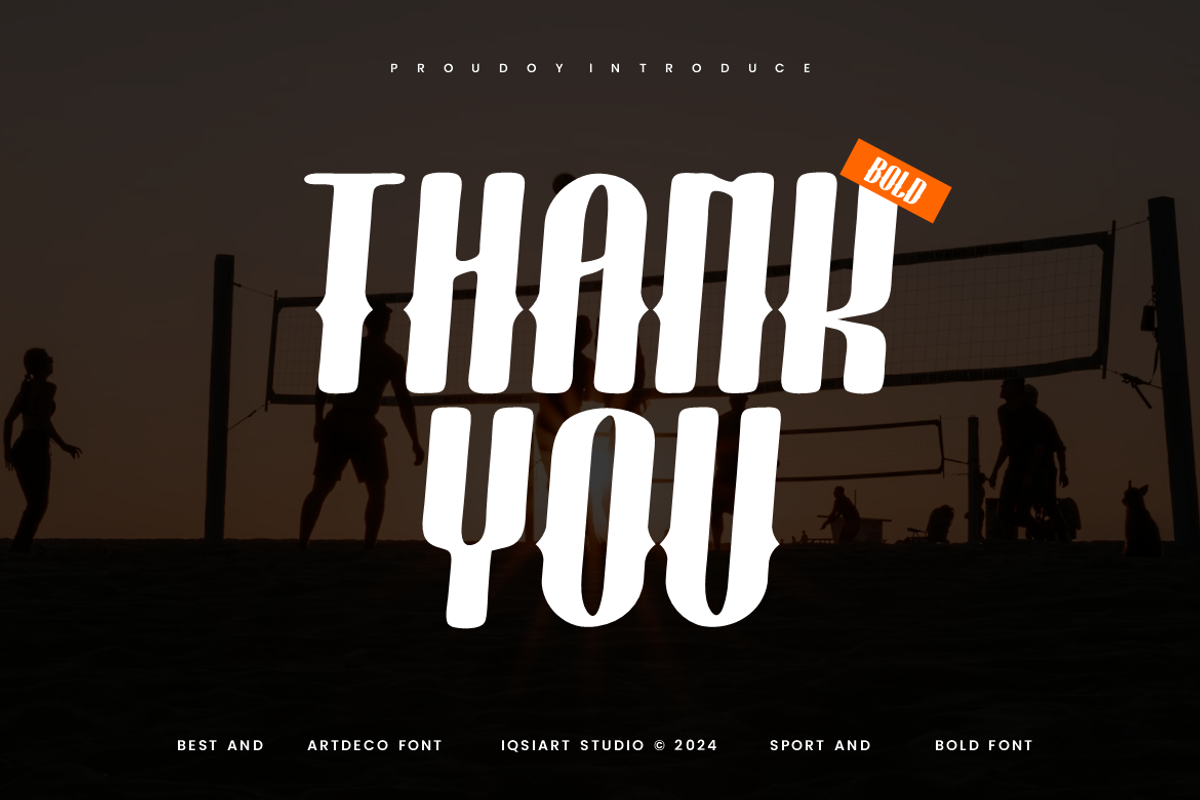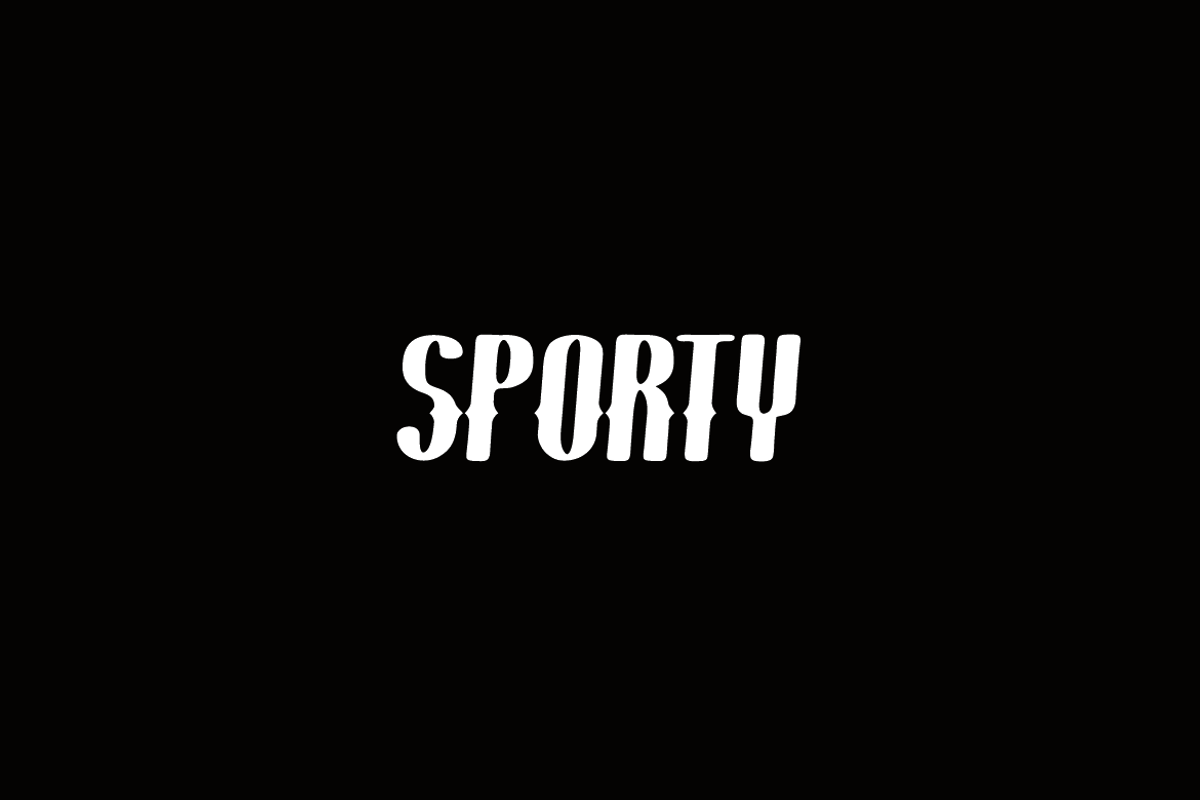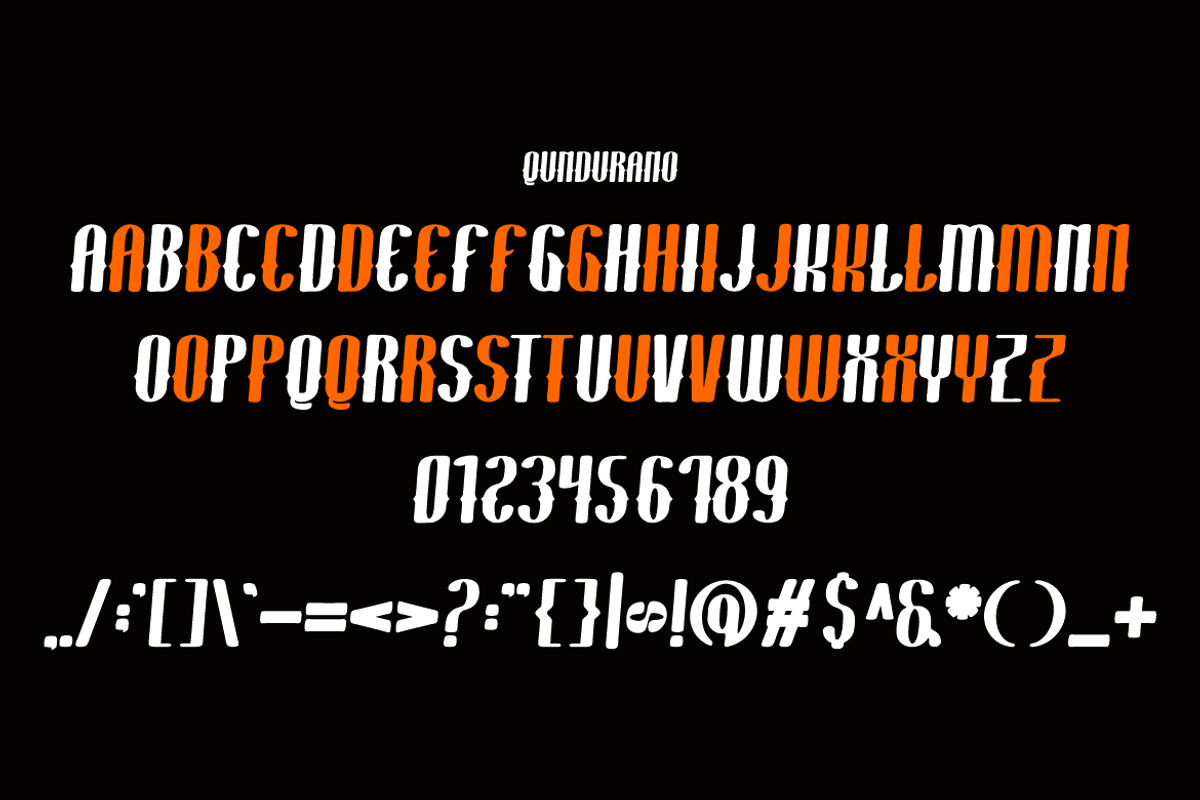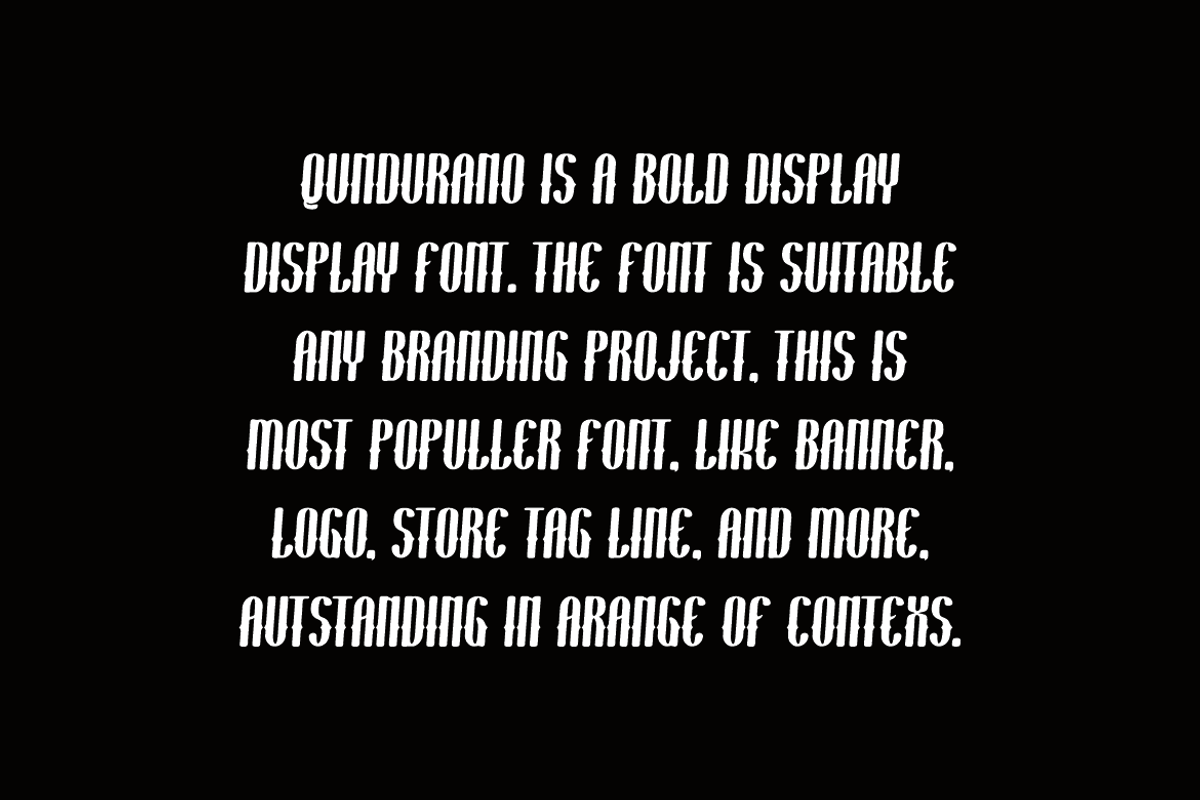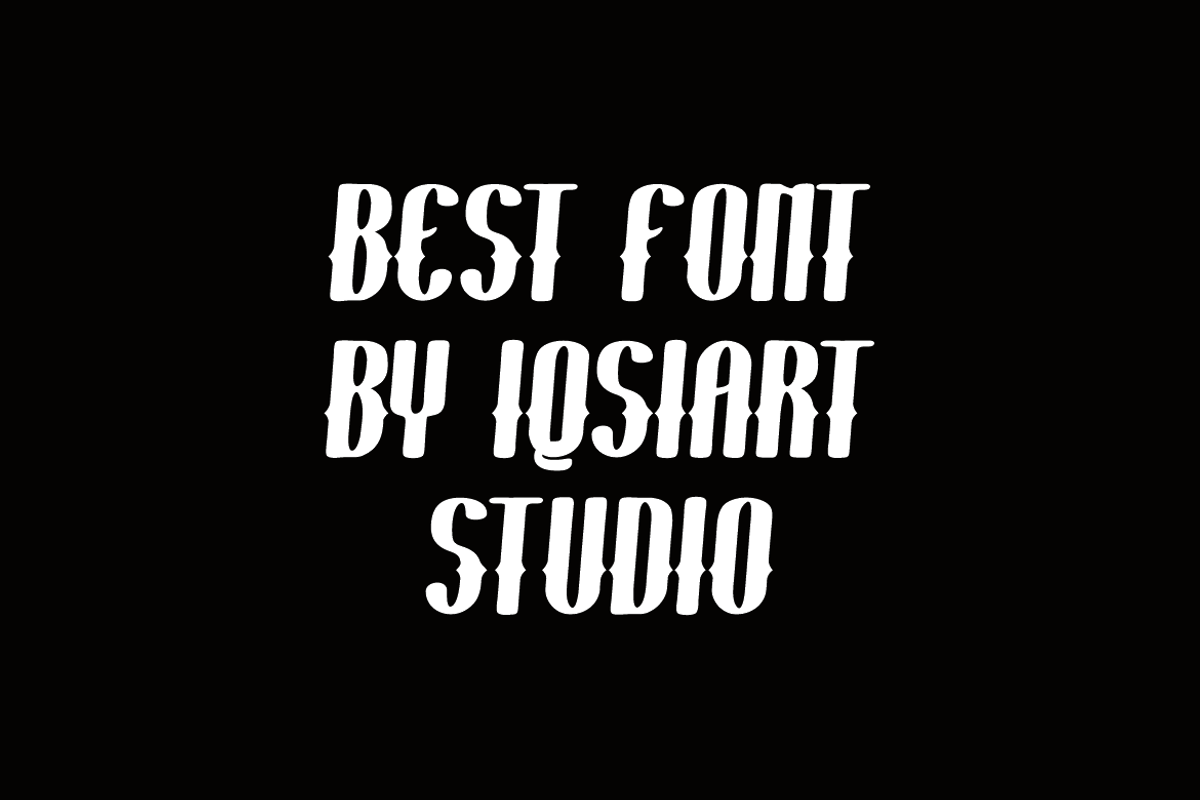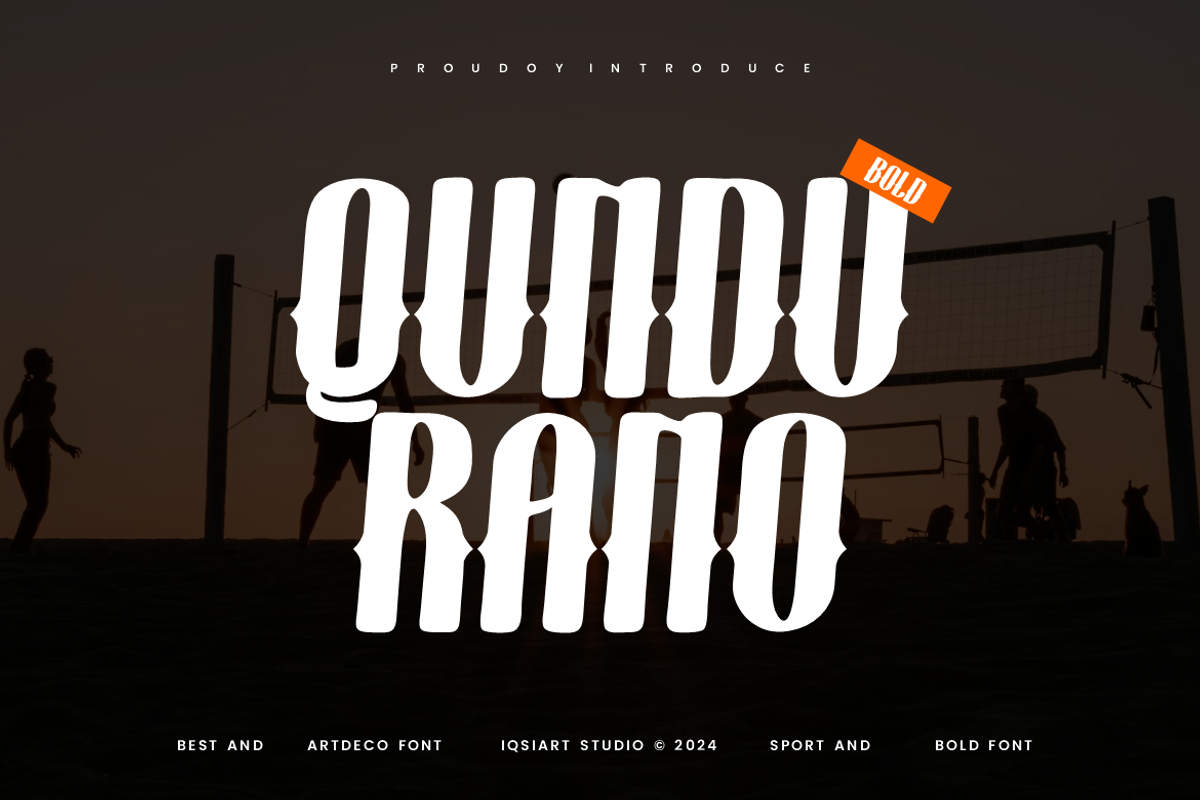
Qundurano - Sport Font
Qundurano Font is a best and authentic display font. This font can be used for your various needs. We provide various themes and font styles. visit our profile to get a wide variety of themes and different font styles you need.